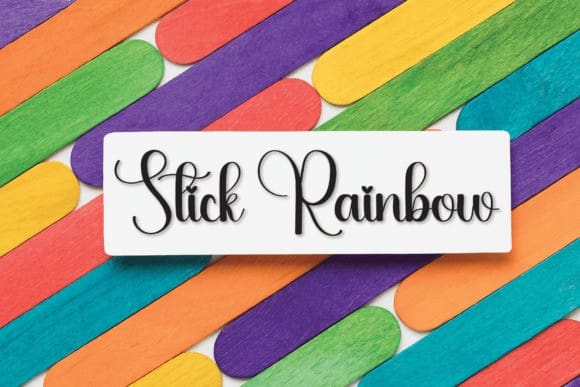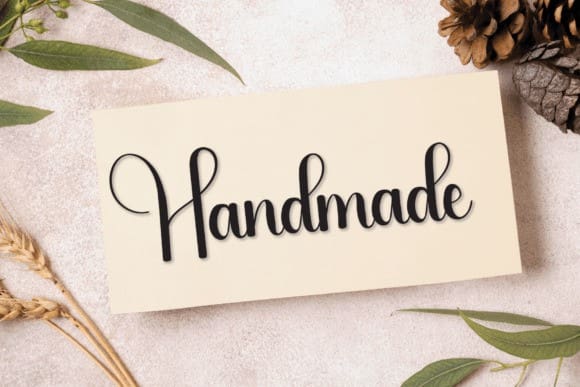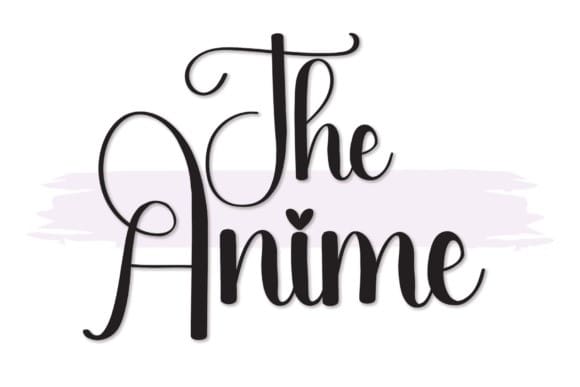
The Anime Font
The Anime Font is an enchanting handwritten font. This versatile script font has a wide spectrum of applications ranging from greeting cards to headlines and is guaranteed to add a romantic feel to your next project.